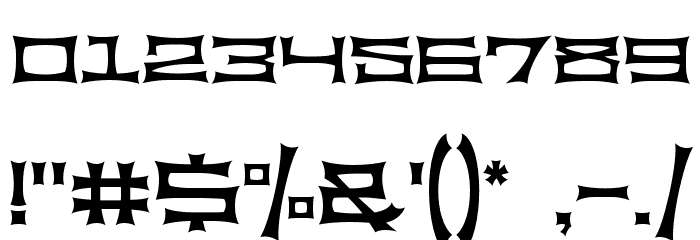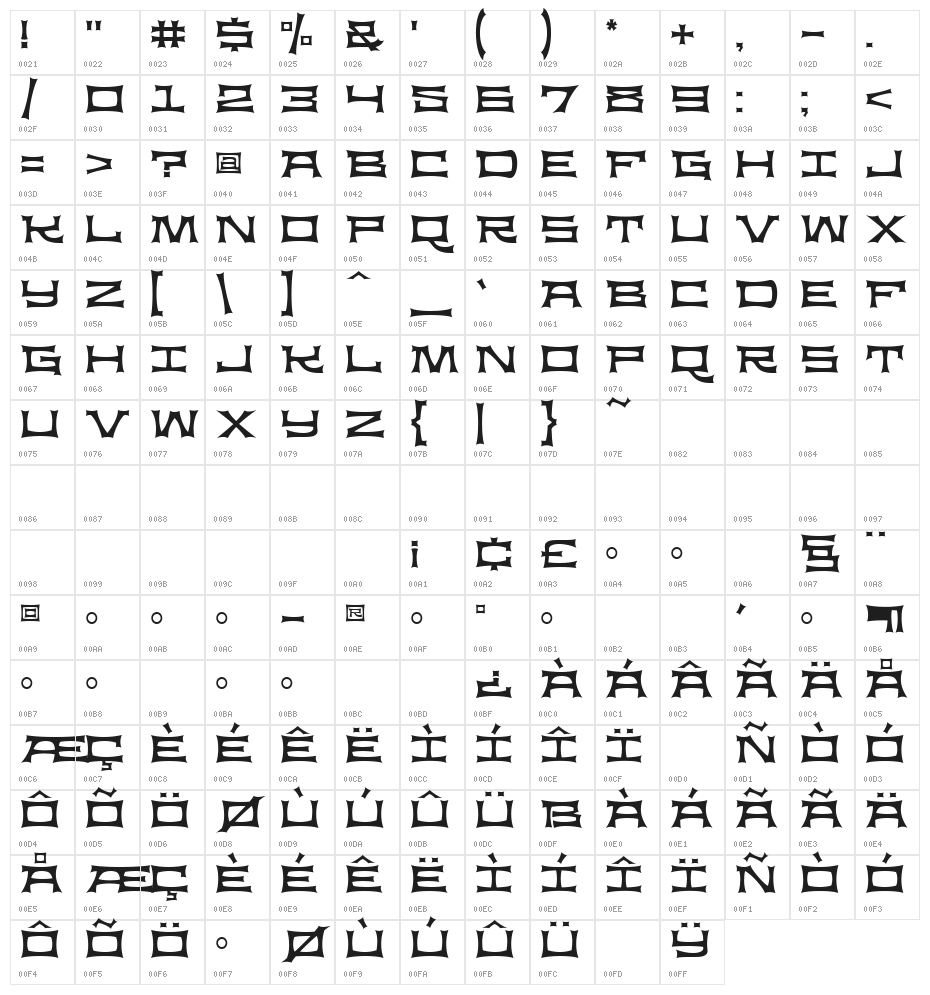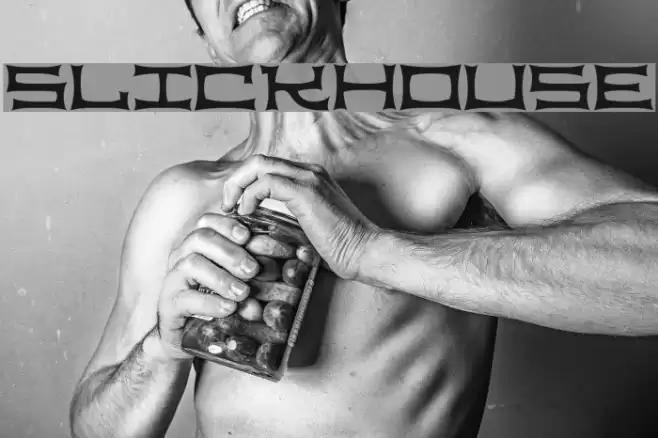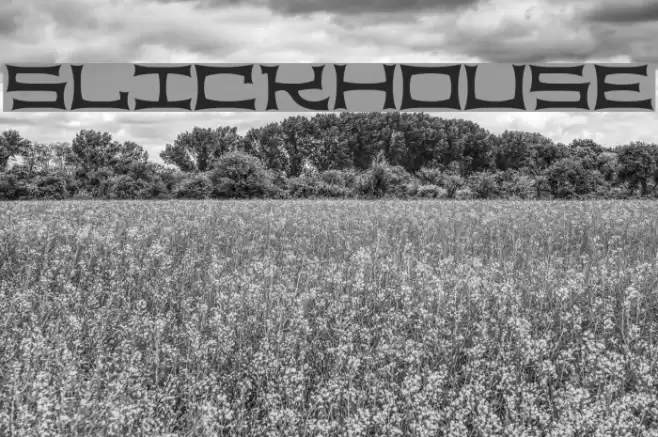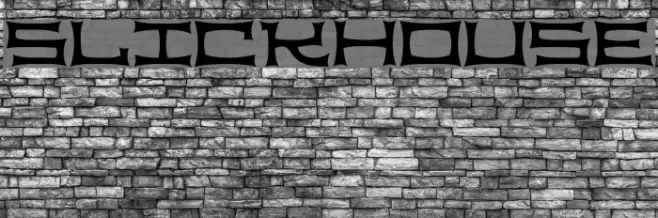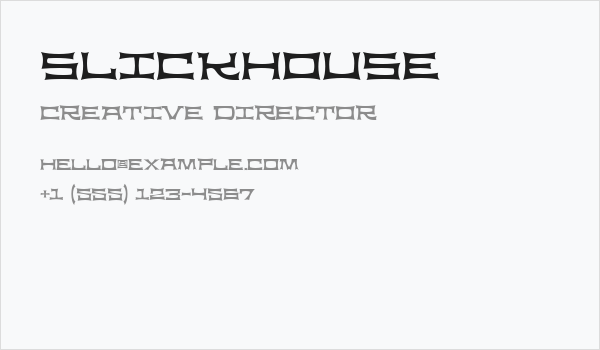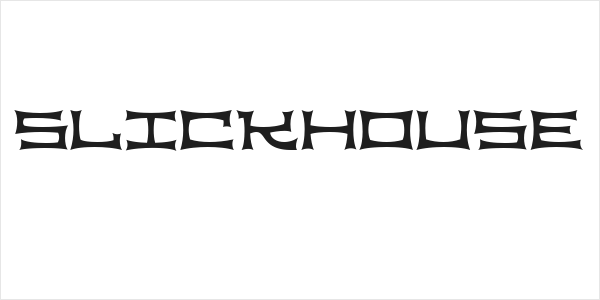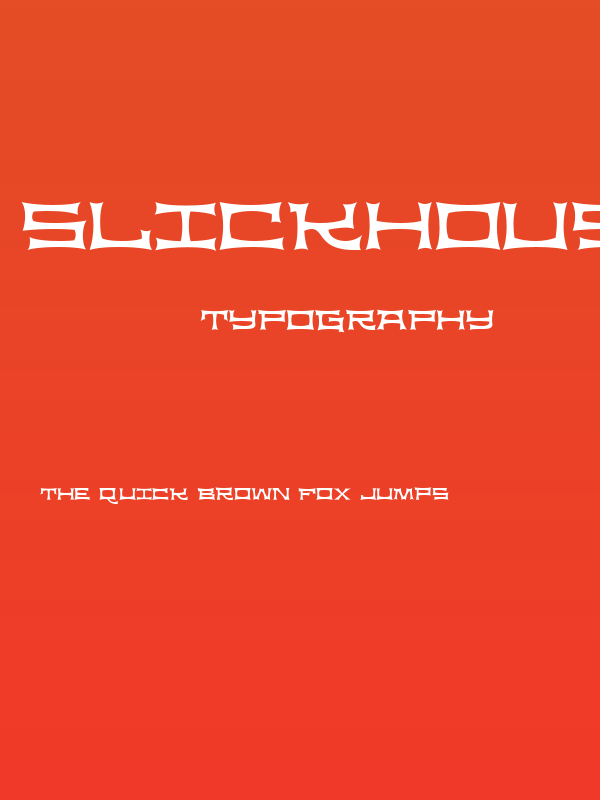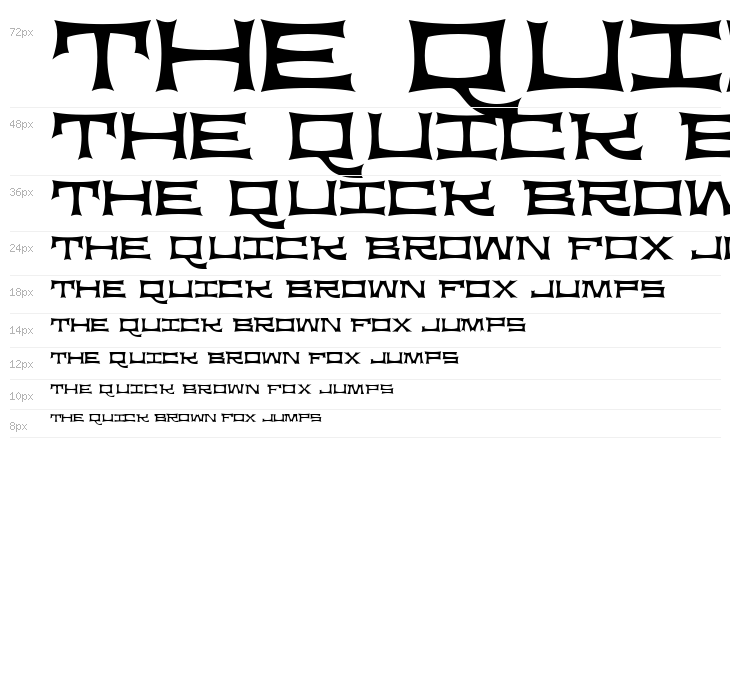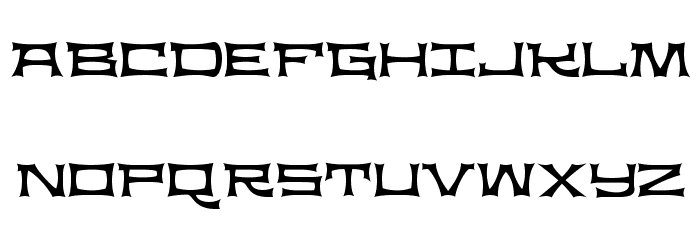
Slickhouse Font
Slickhouse Description
This font exhibits a bold and edgy design with sharp, angular lines and a distinct geometric style. The characters are crafted with a unique flair, featuring pointed edges and a slightly aggressive aesthetic. The uppercase and lowercase letters maintain a consistent style, while the numerals and special characters complement the overall design. This font's striking appearance makes it suitable for projects that require a strong visual impact. Its boldness and distinctive character shapes lend themselves well to creative and modern design applications.
| Proposed Projects | Ideal for branding, posters, album covers, and any project needing a bold, modern look. |